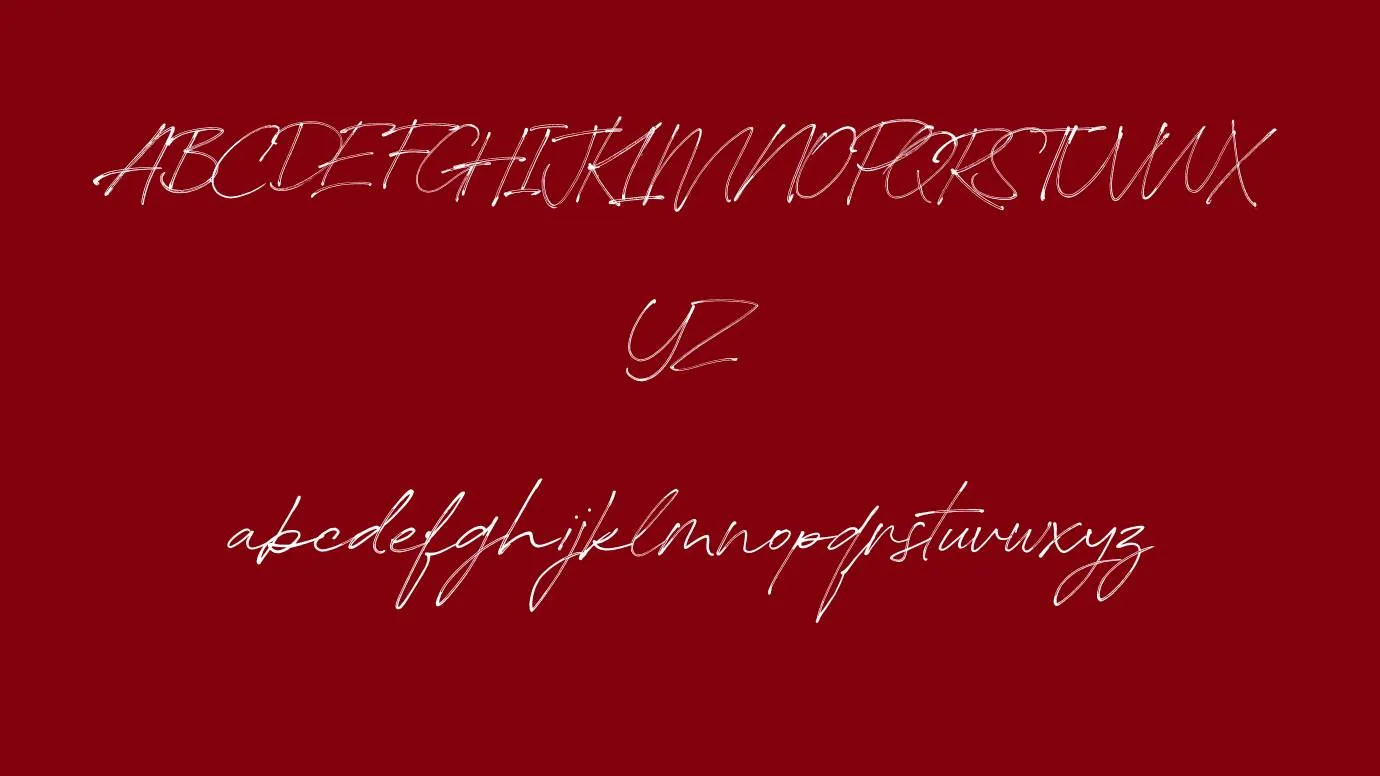
Redstock font is a beautiful script typeface with the effect of handwritten text from ballpoint. This interesting font was designed by Konstantine Studio in 2019.
It has amazing features as this font contains 242 characters, 284 glyphs, and 1000 units per Em. The weight of the font is light and its width is Semi-expanded. It has an Italic writing style which looks very elegant in most of the projects.
RedStock Font
NameRedstock Font
DesignerKonstantine Studio